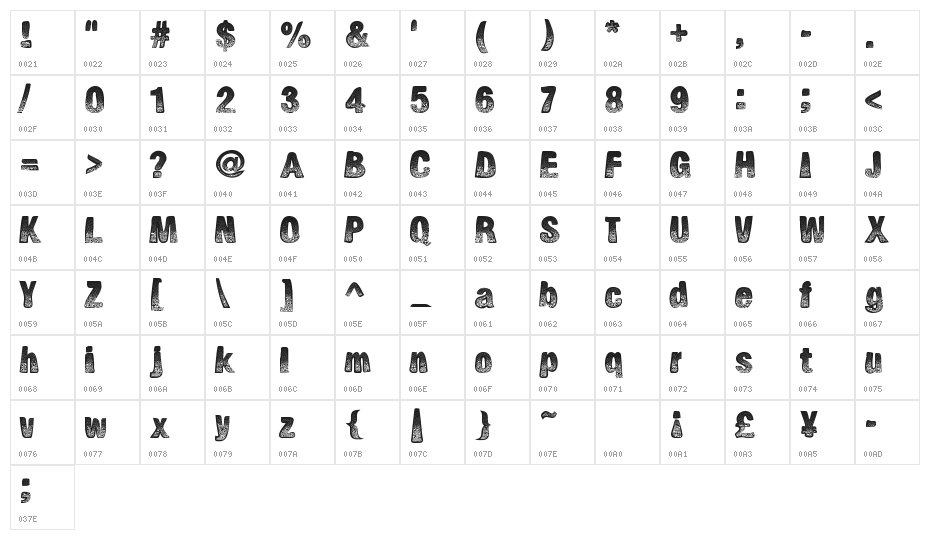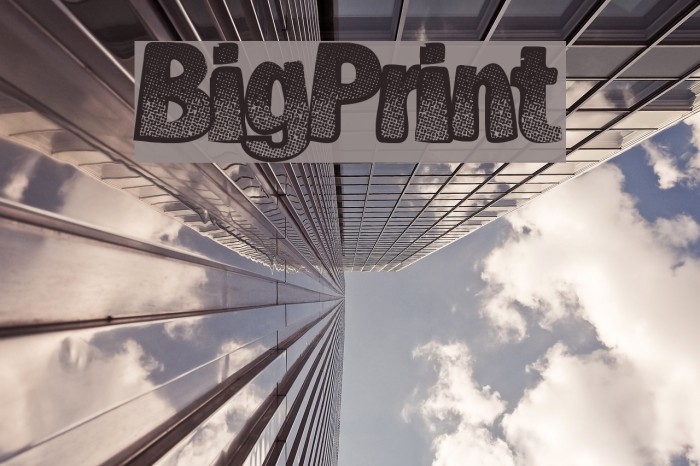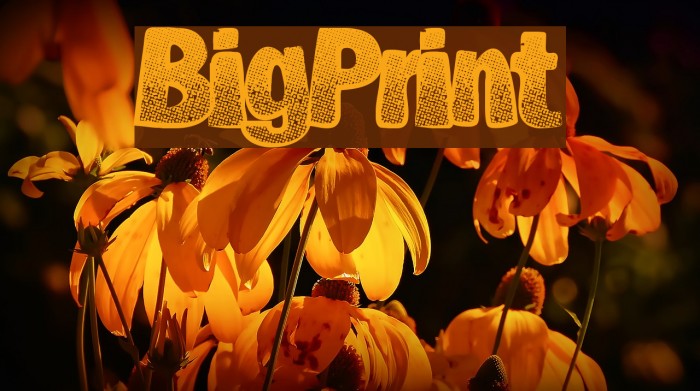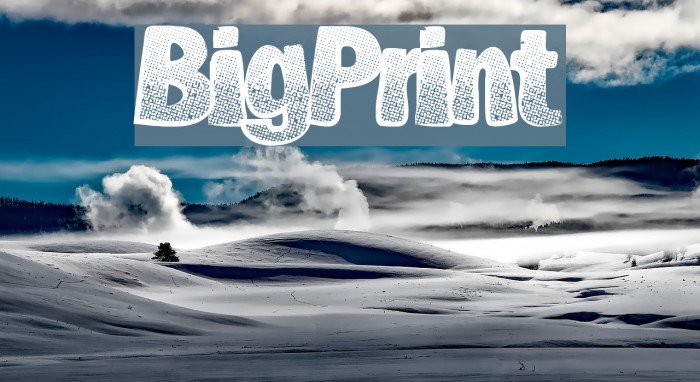
BigPrint Font
BigPrint Description
This font features a bold and playful design with a textured, stippled effect that adds a sense of depth and dimension to each character. The letters are rounded and slightly irregular, giving them a hand-drawn, artistic feel. The uppercase and lowercase letters maintain a consistent style, with the uppercase being slightly larger and more pronounced. The numbers and special characters follow the same design principles, ensuring uniformity across the entire set. This font's unique texture and bold presence make it stand out, making it suitable for eye-catching designs.
| Overall Style | Playful, Artistic |
| Proposed Projects | Ideal for posters, children's books, comic strips, and playful branding projects. |